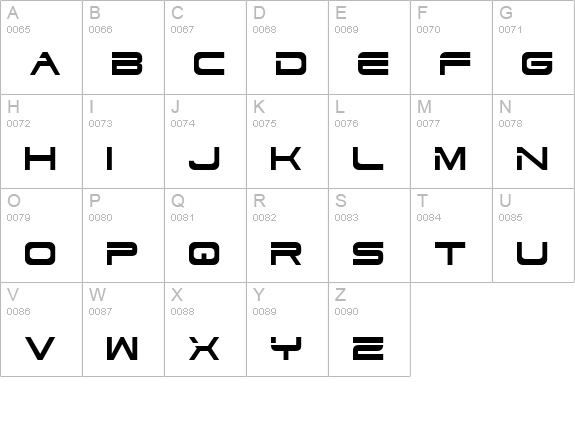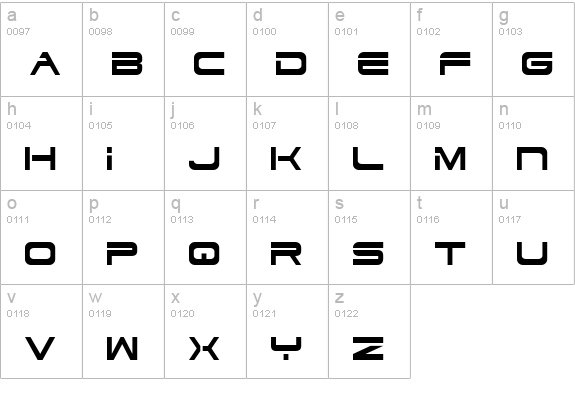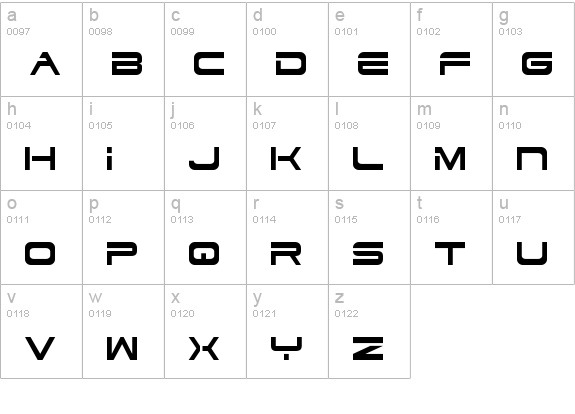
Dodger Condensed Font Details
Dodger Condensed is a distinctive, condensed-width variant in the Dodger typeface family \xE2\x80\x94 well suited to design and typography projects.
Dodger Condensed font is a sleek and modern typeface that exudes a sense of style and sophistication. With its clean lines and bold characters, this font is perfect for adding a touch of elegance to any design project. Whether you're creating a logo, branding materials, or just want to make a statement with your typography, Dodger Condensed is sure to stand out. What makes Dodger Condensed even better is that it is available for free download at FontsMarket.com. This means you can easily access this versatile font and use it in your work without any hassle. So why wait? Elevate your designs with Dodger Condensed today and make a lasting impression with its timeless appeal.